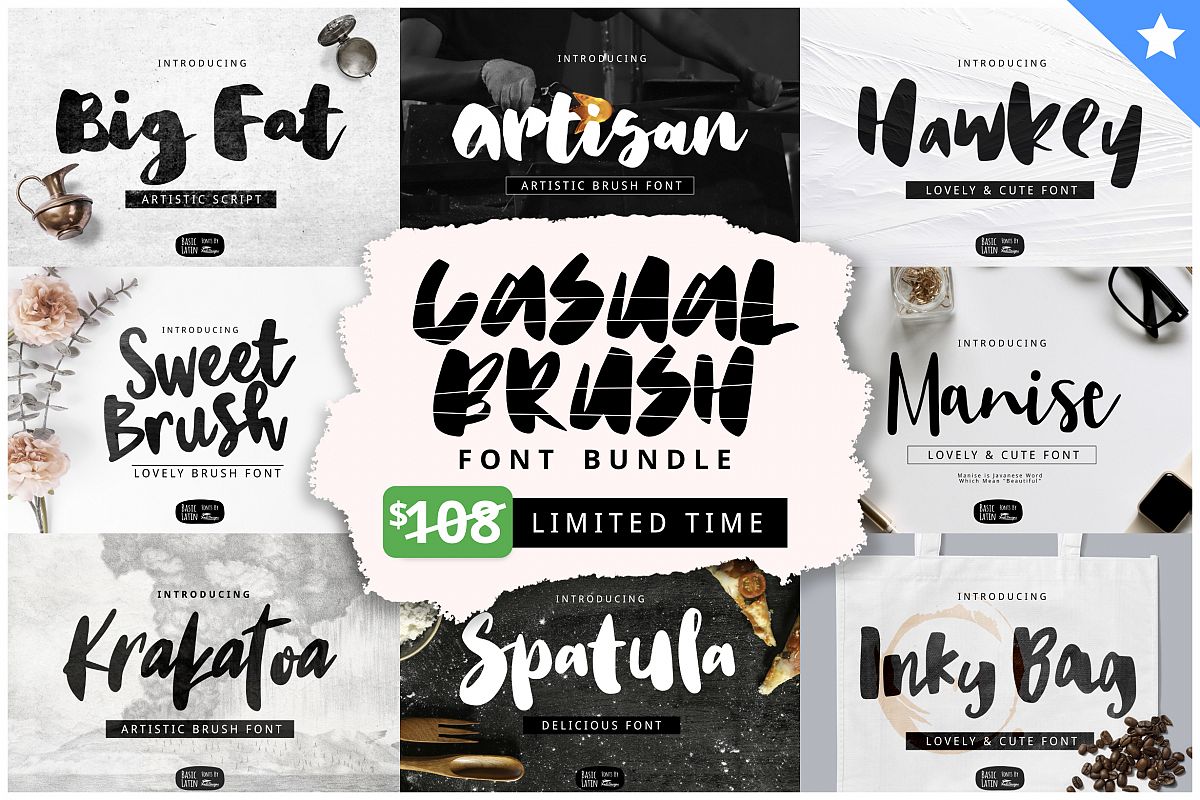
Casual Brush Font Bundles by YandiDesigns
Casual Brush Font Bundle by YandiDesigns
10  Brush fonts
1. Big Fat font
2. Artisan font
3. Hawkey font
4. Racket font
5. Krakatoa font
6. Manise font
7. Spatula font
8. Sweet Brush font
9. Balmy Day font
10. Inky Bag font
Mostly Script